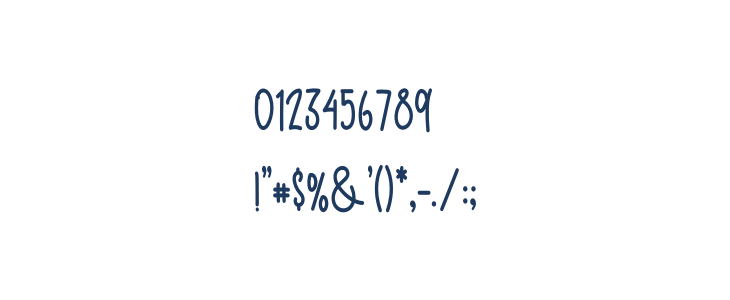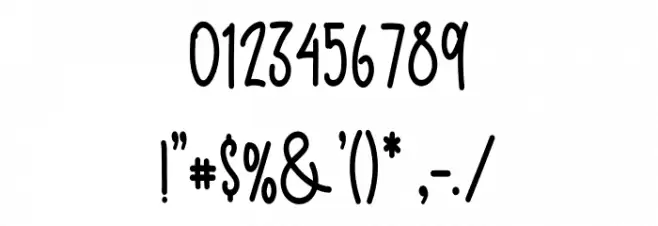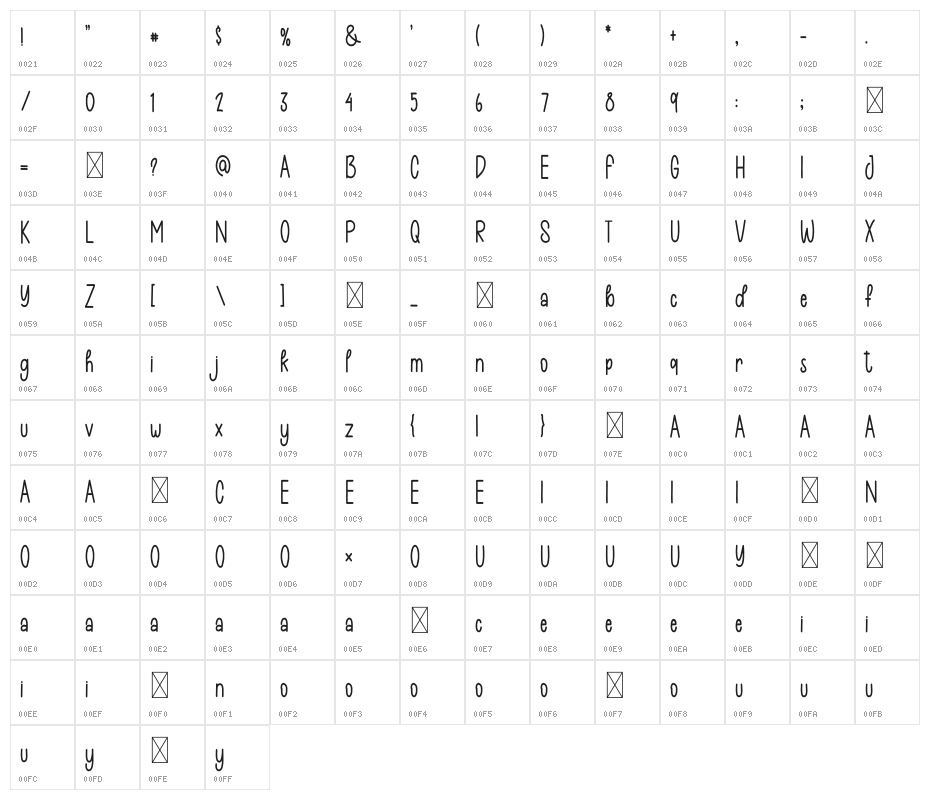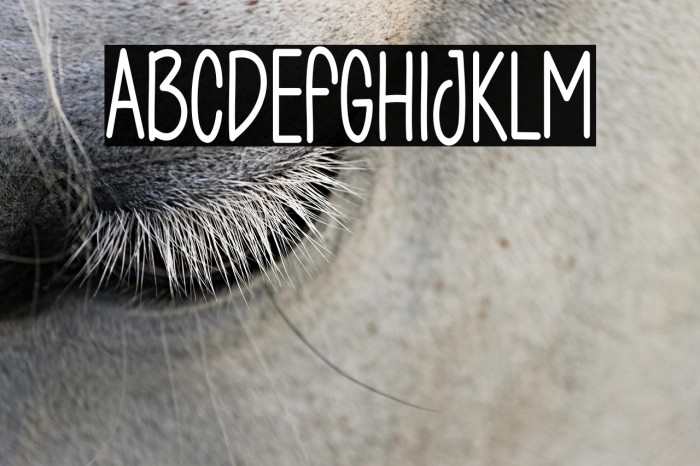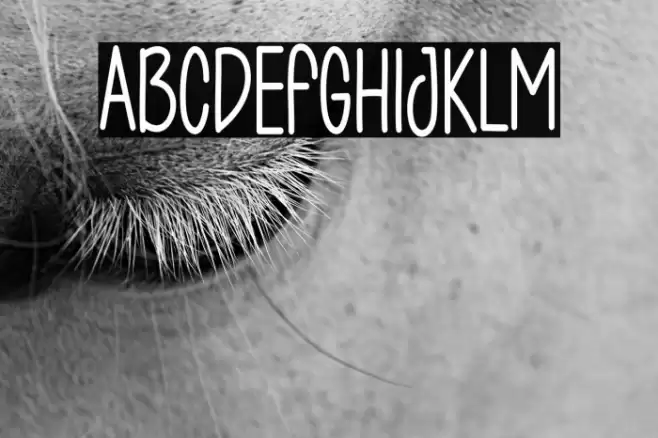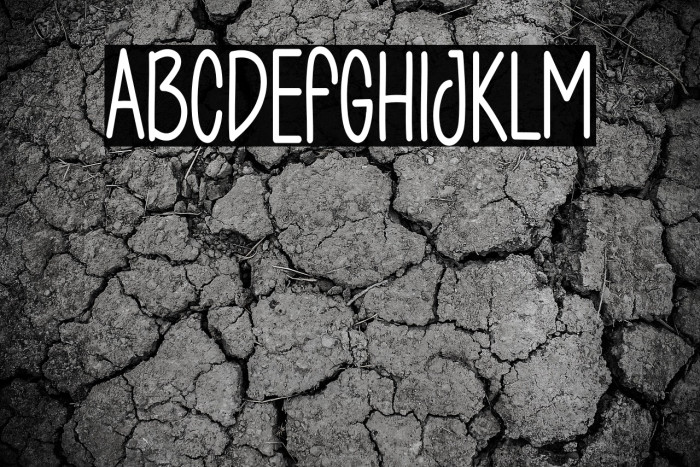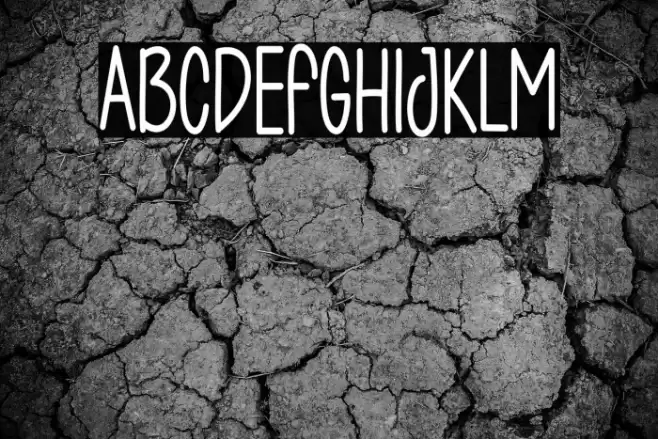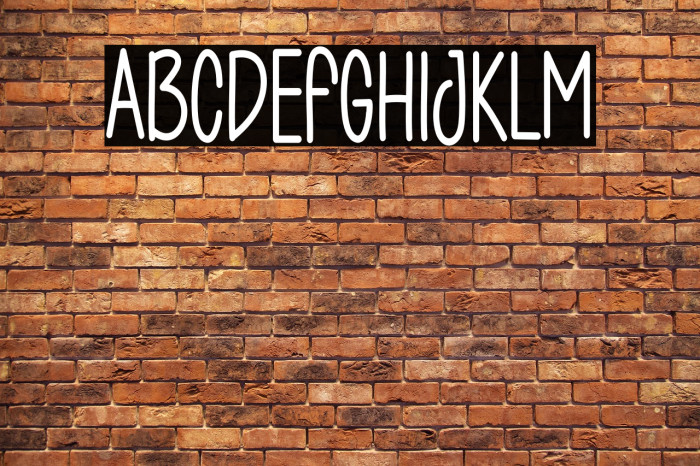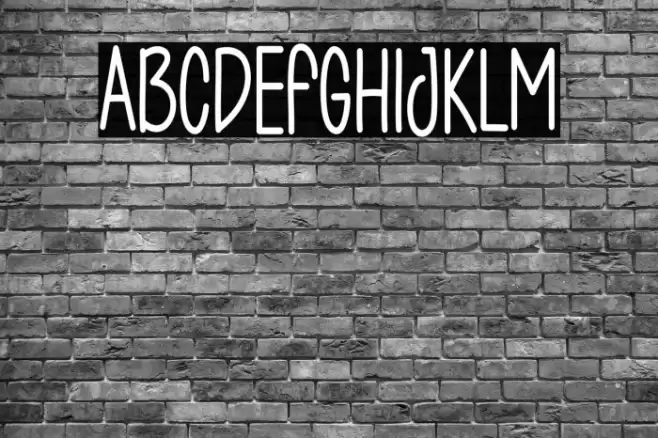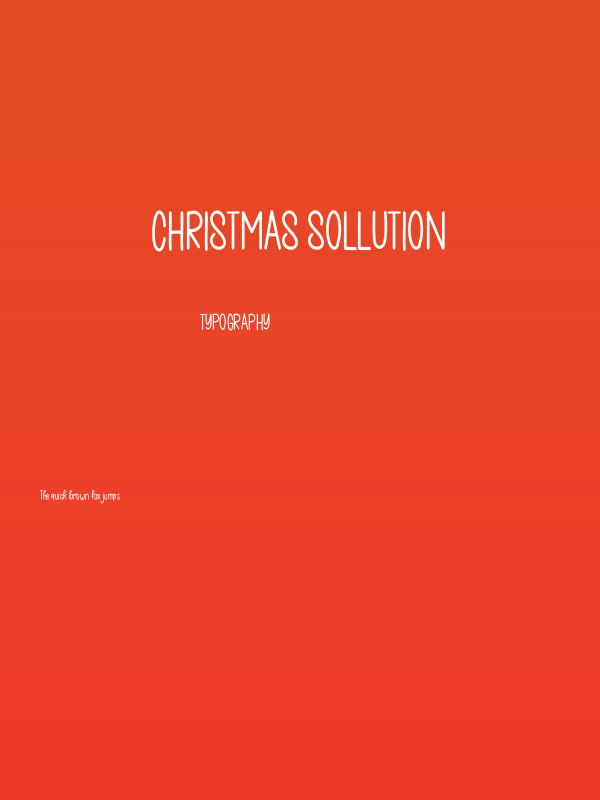
Christmas Sollution Font
Christmas Sollution Description
This playful and whimsical font features rounded, smooth strokes that give it a friendly and approachable appearance. The characters are slightly elongated with a consistent stroke width, contributing to a clean and modern look. The uppercase letters maintain a uniform height, while the lowercase letters have a gentle, flowing style that adds to the font's charm. The numerals are clear and easily readable, matching the overall aesthetic. Special characters are designed with the same playful touch, making this font versatile for various creative projects.